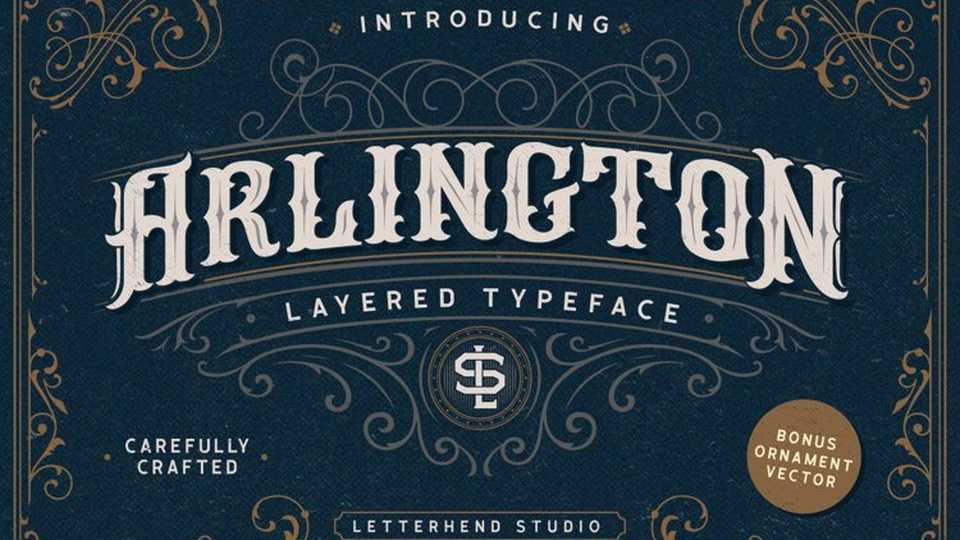
Download Arlington font, a layered typeface inspired by vintage lettering signs and art. While it has a Victorian touch, Arlington still looks bold and solid.